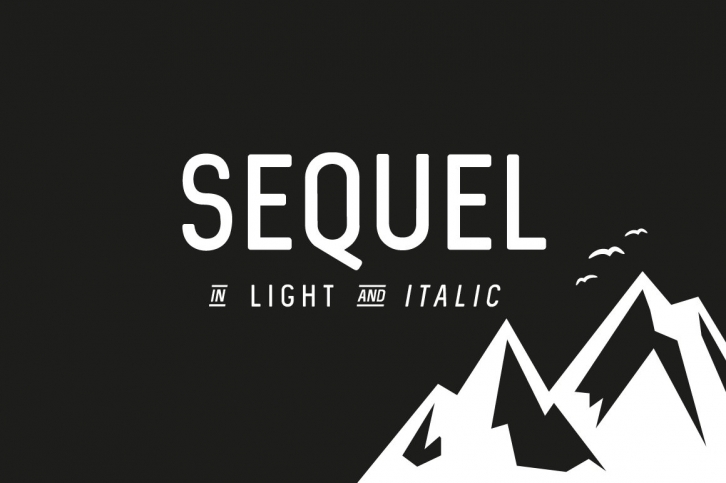
Once you bought it you can use it for ever (commercial free use) Sequel is multifunctional, as it has 8 different ligatures and unique brackets.
- If you don't want the ligatures, just type the word with CAPS.
- This font works better with wide distances